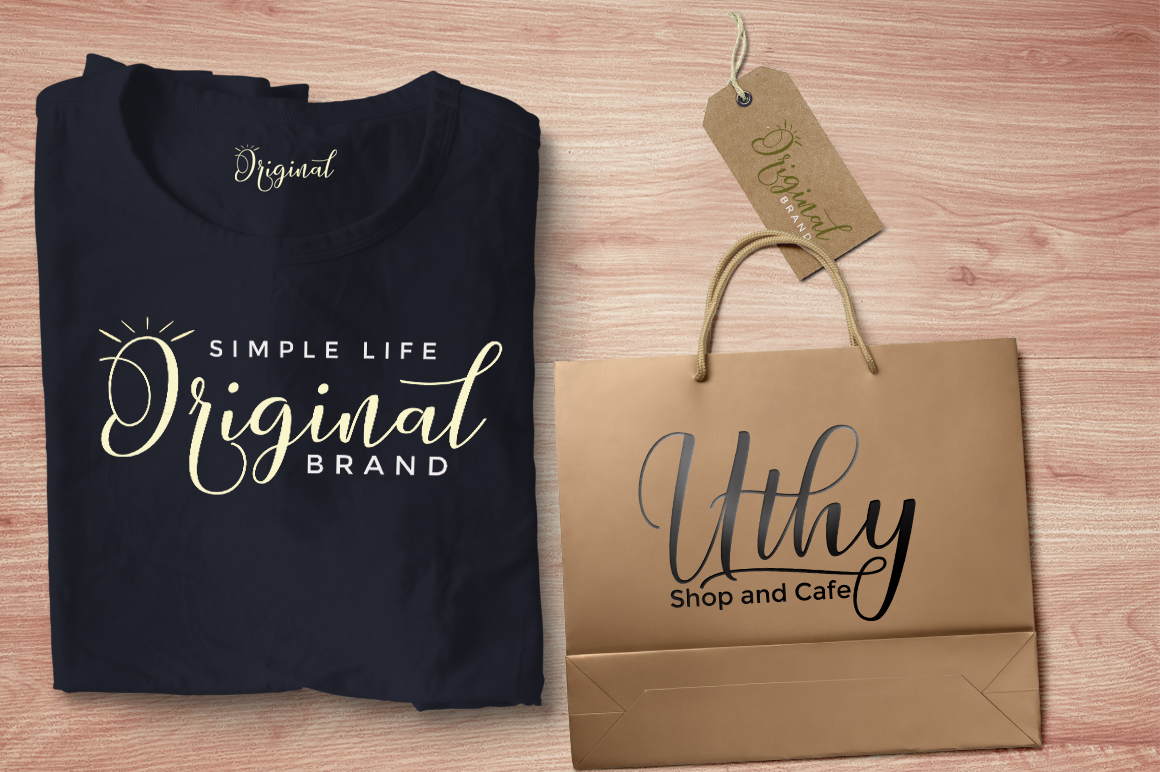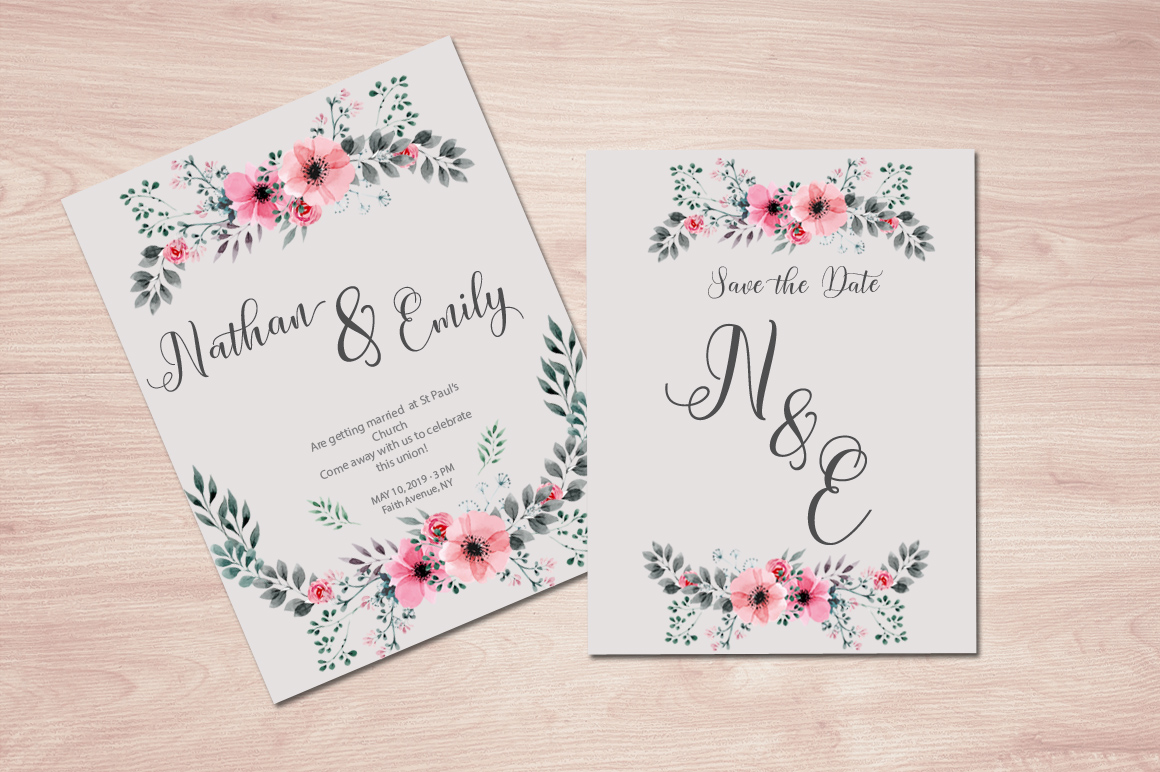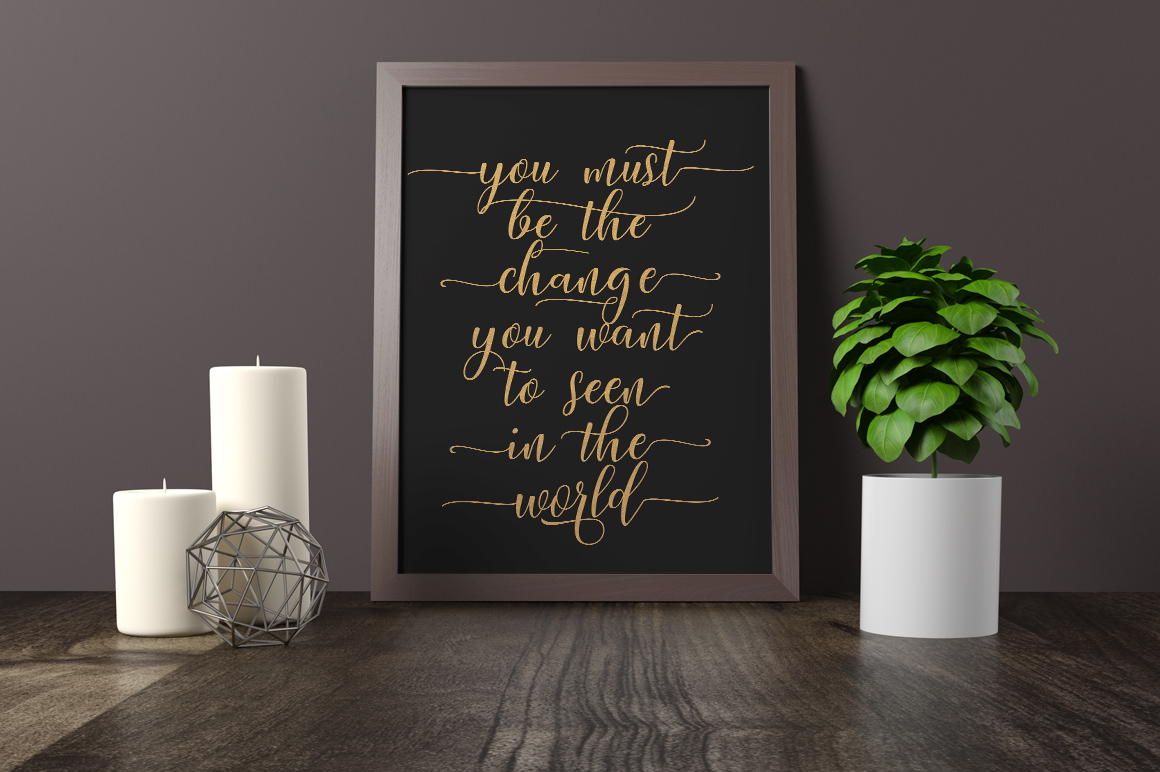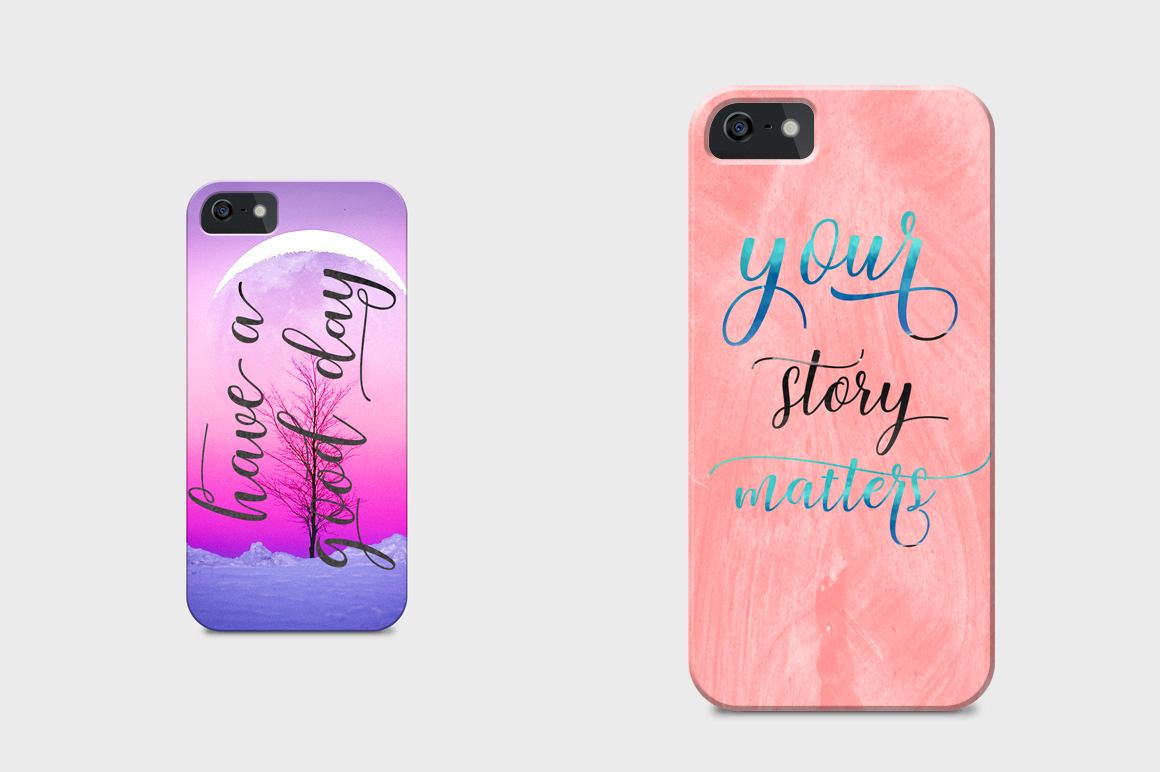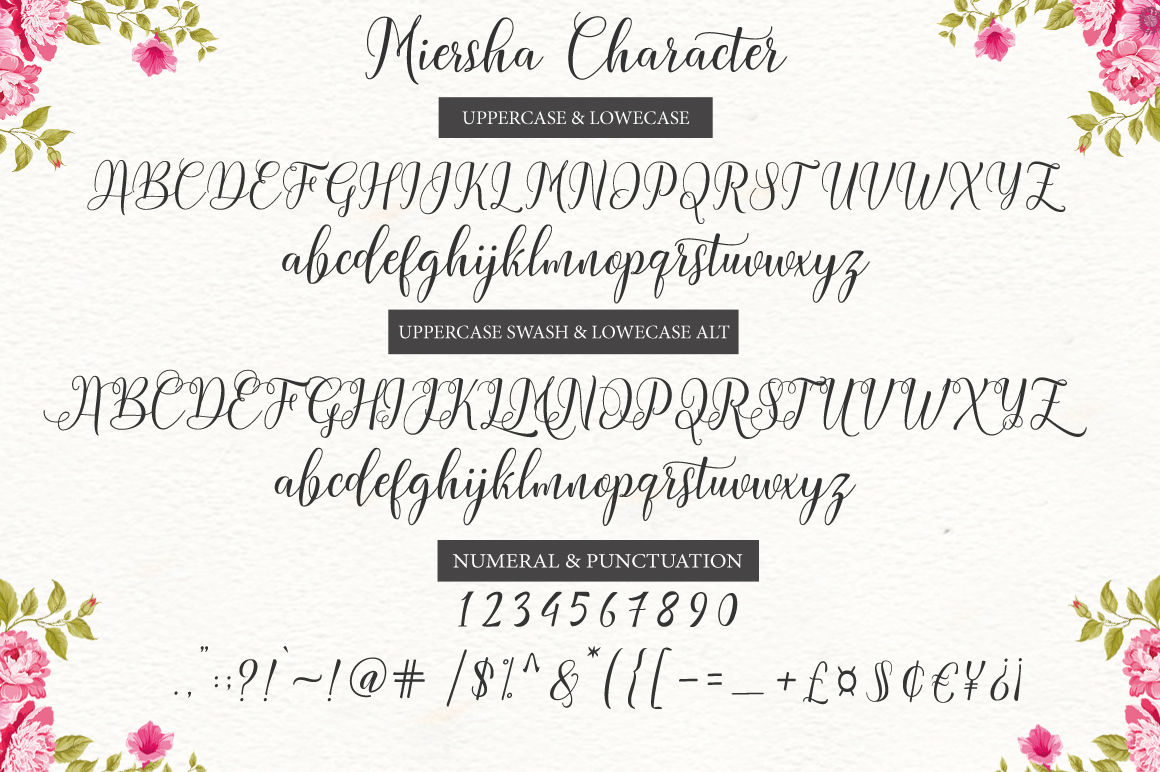
Introduction to Miersha Font
Have you ever stared at a blank canvas, feeling the weight of a creative project on your shoulders? The cursor blinks, taunting you to bring your vision to life. In those moments, the right design resource can be the difference between a mediocre outcome and a masterpiece. That’s where the Miersha Font comes in – a stunning script font that adds an unparalleled level of elegance to any project.
As a designer, you understand the importance of choosing the right font for your work. The Miersha Font is more than just a pretty face; it’s a versatile tool that can elevate your designs, from elegant invitations to high-quality digital art. With its swashy lines and modern style, this font is perfect for designers looking to add a touch of sophistication to their work.
Whether you’re working on a free download or a commercial project, the Miersha Font is an excellent choice for anyone seeking a high-quality design solution. Its transparent background makes it easy to use, and its elegant style is sure to impress. In this article, we’ll dive deeper into the world of the Miersha Font and explore its many uses and benefits.
Key Features of Miersha Font
- High-quality design resource ideal for creative projects, offering a unique aesthetic.
- Includes multiple font styles and weights, providing designers with a versatile tool for creative expression.
- Designed with a high resolution of 300 DPI, ensuring crisp and clear text display in both digital and print applications.
- Perfect for designers seeking a distinctive and professional look for their creative projects, from branding and marketing materials to editorial and publishing content.
Honest Review: Miersha Font
As a designer, I’m always on the lookout for high-quality design resources to elevate my creative projects. The Miersha Font is one such find that I’d like to share my thoughts on.
What works well: ✨ I was impressed by the clean and elegant design of the Miersha Font. The font is highly legible, making it perfect for body text or headings in any design project. The transparent background allows for seamless integration into any design, making it a versatile choice.
What doesn’t work well: ⚠️ While the font is beautiful, I found it to be limited in terms of character variations. The font only includes a few weights, which may not be ideal for designs that require a lot of customization.
Overall impression: The Miersha Font is a solid addition to any designer’s toolkit. Its clean design and high-quality look make it perfect for a wide range of creative projects, from logos to brochures. If you’re looking for a free download with a professional look, the Miersha Font is definitely worth checking out.
Key features:
- High-quality, clean design
- Limited character variations
How to Use Miersha Font
Miersha Font is a high-quality design resource ideal for creative projects. It’s available for free download and features a transparent background, making it versatile for various applications.
Tips for Getting the Most Out of Miersha Font
Use Miersha Font in conjunction with other design elements to create a visually appealing design. Experiment with different font sizes and colors to achieve the desired effect.
Miersha Font is ideal for various creative projects, including brochures, posters, and social media graphics. It’s also suitable for web design and digital marketing materials.